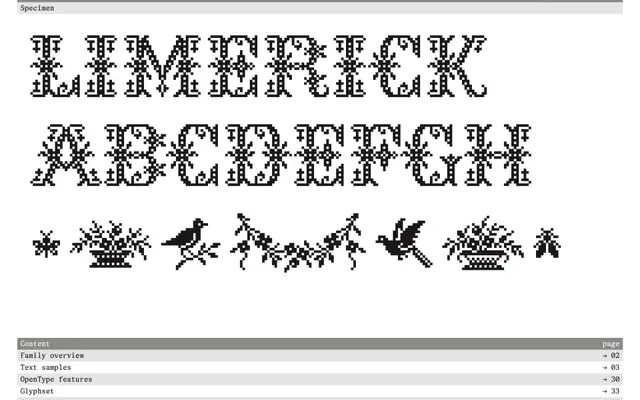
A modular ornamental display family from Proof of Words, built across eight geometric sub-styles including Clover, Mosaic, Star and Circle.
Each sub-family within Limerick applies a distinct geometric shape motif to the letterforms, producing a system of eight decorative variants that share a common underlying structure. The range spans Clover, Mosaic, Star, Lozenge, Octogone, Square, Circle and Flower, giving designers a broad palette of ornamental registers within a single family. Suited to logotypes, editorial headers and decorative contexts where geometric patterning is the intended effect.
Limerick is an ornamental display family built around decorative geometric shape variants — Clover, Mosaic, Star, Lozenge, Octogone, Square, Circle, Flower — placing it firmly in the display/ornamental category with no conventional text application.